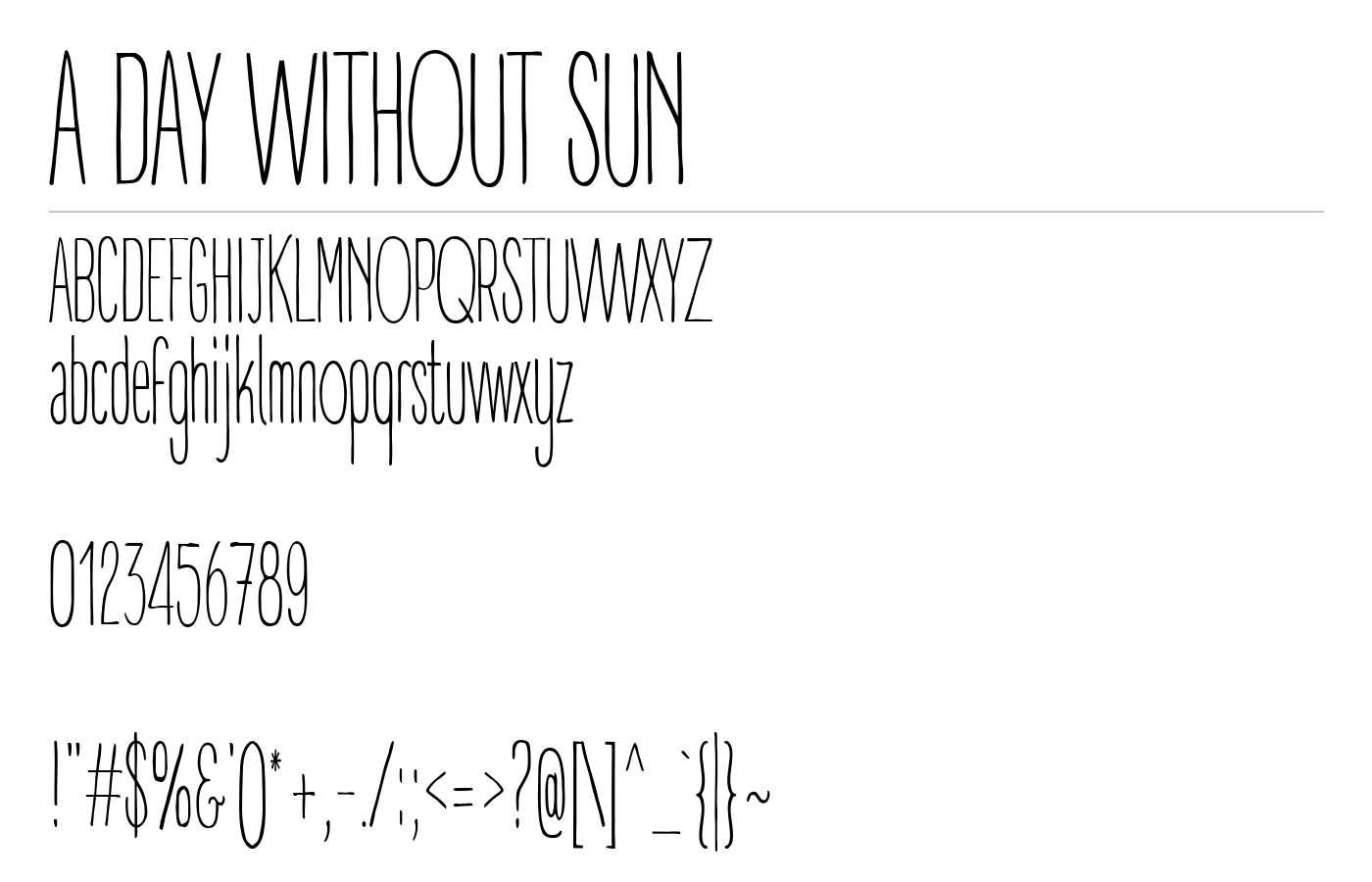
A DAY WITHOUT SUN is a narrow, tall sans serif font with a hand-drawn, whimsical character. Its thin strokes and elongated letterforms give it a delicate, quirky feel, making it ideal for creative projects, headlines, and branding that want to convey a unique and playful personality. This font works well where a light, artistic touch is needed without sacrificing readability.
A DAY WITHOUT SUN Font
About A DAY WITHOUT SUN Font
| Font family | A DAY WITHOUT SUN Font |
| Designer | Cosimo Lorenzo Pancini |